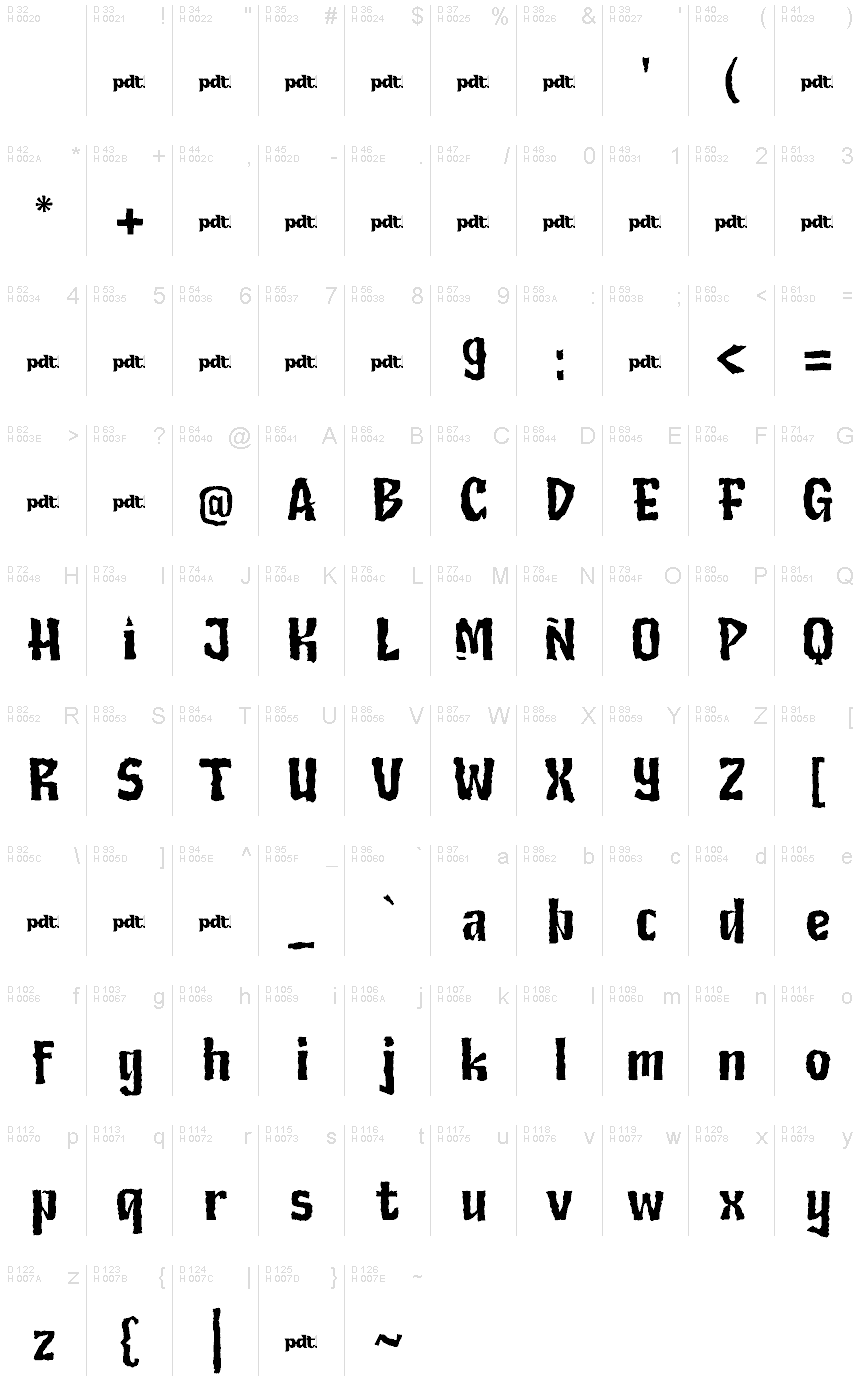
KIMONDTrial-Regular
Kimond font is a display font by Productype with an eroded style that can be described as scratched, worn-out, and old. The graphics present a rough texture with irregular forms that gives them an organic appearance. And although the characters have their own unique features, they all share a readable format which makes the font convenient for viewers in all its creative uses.